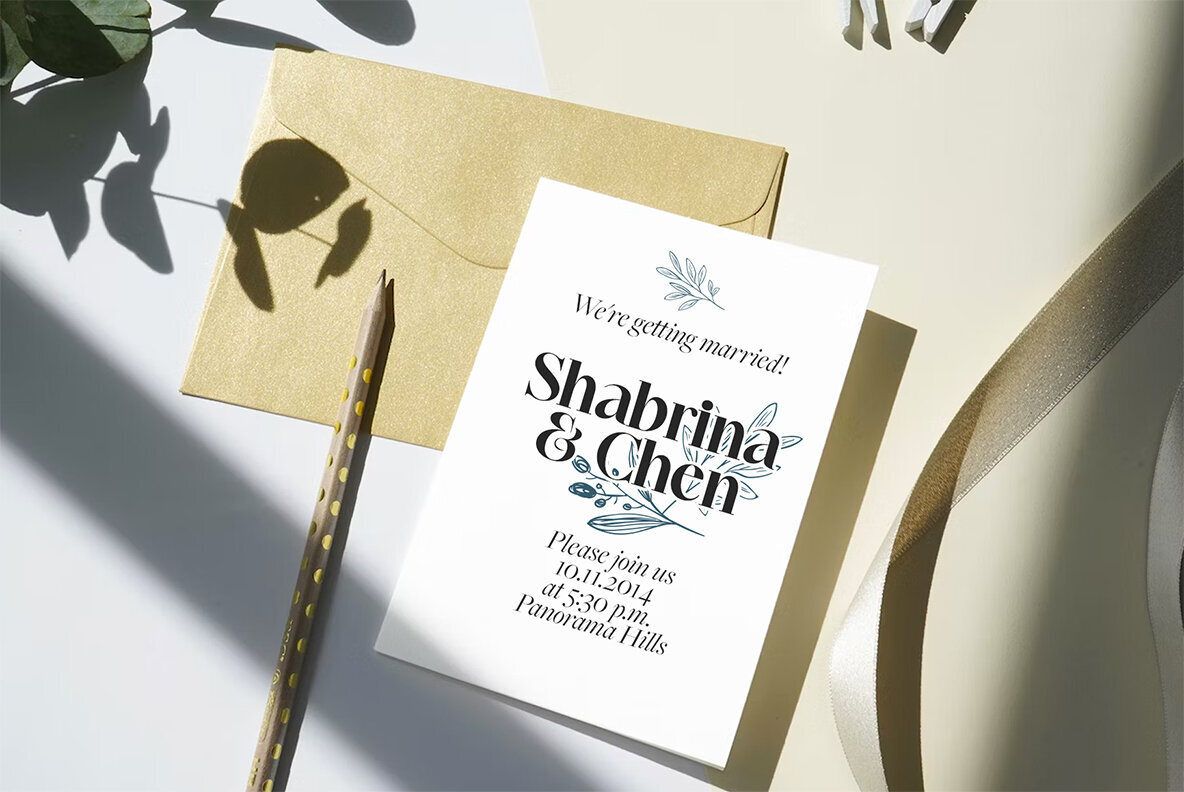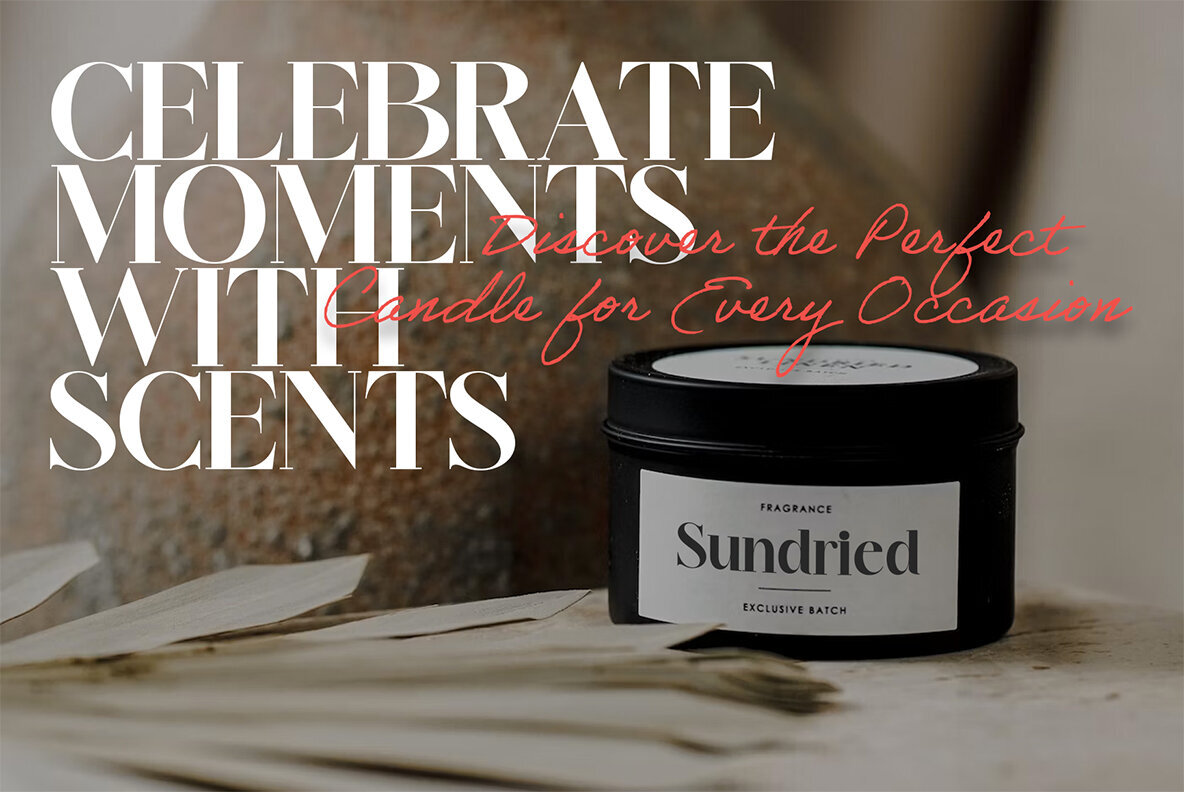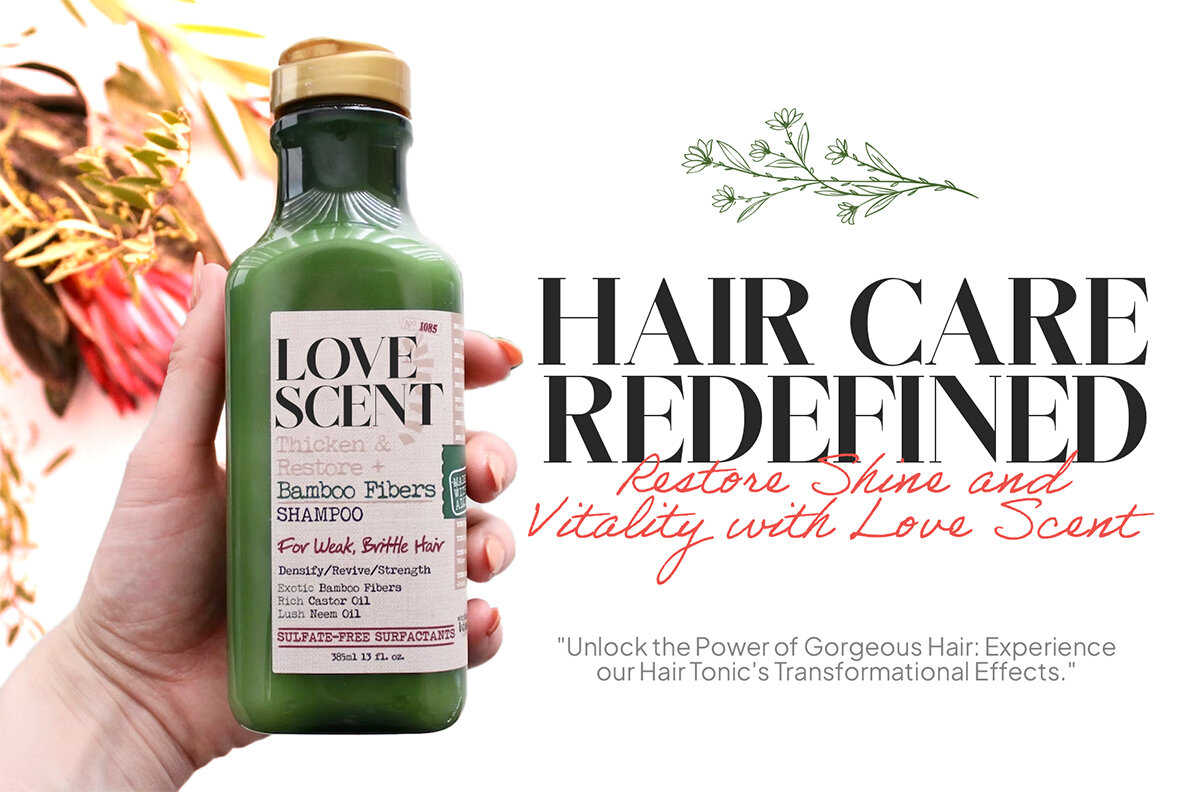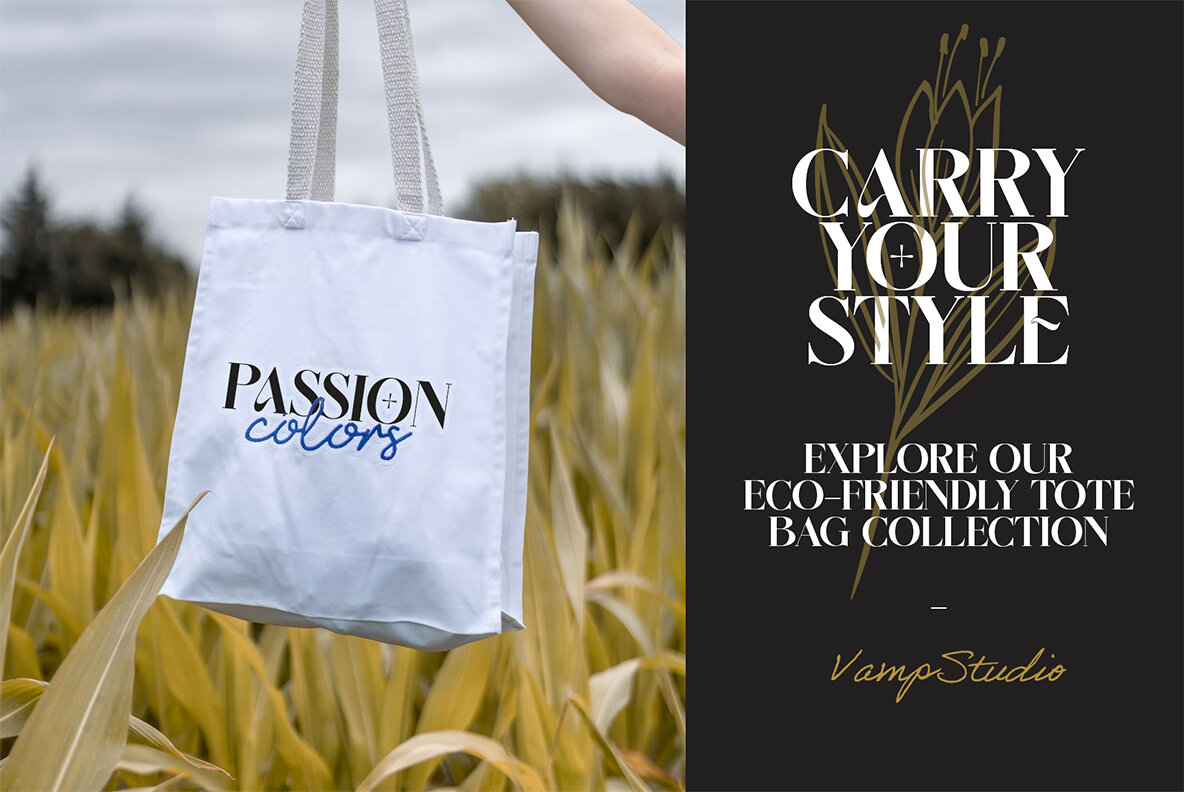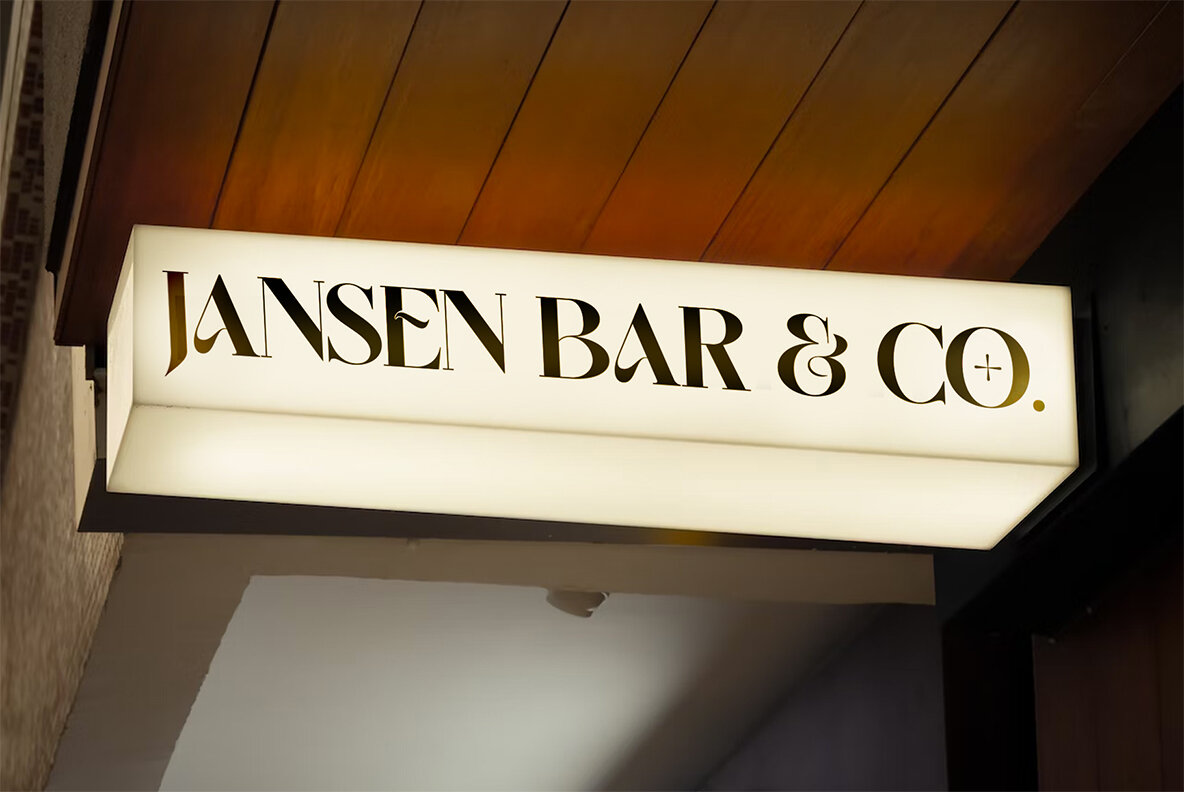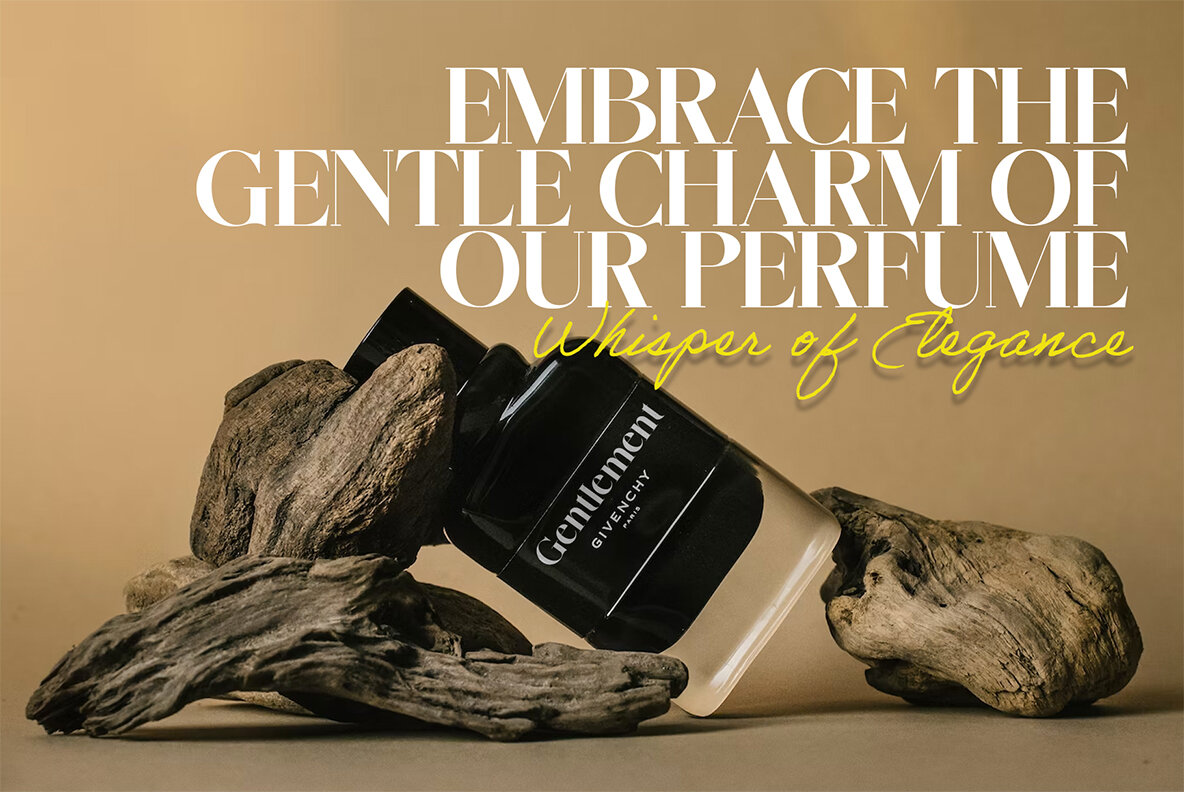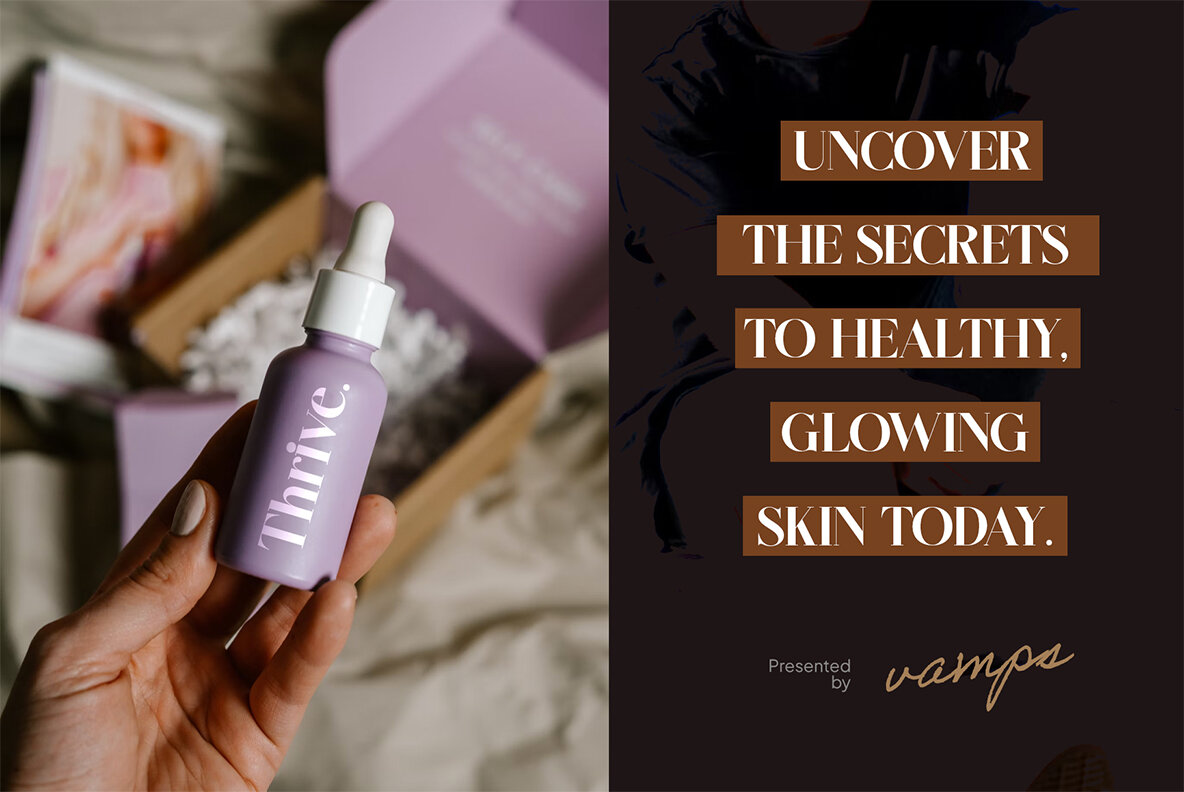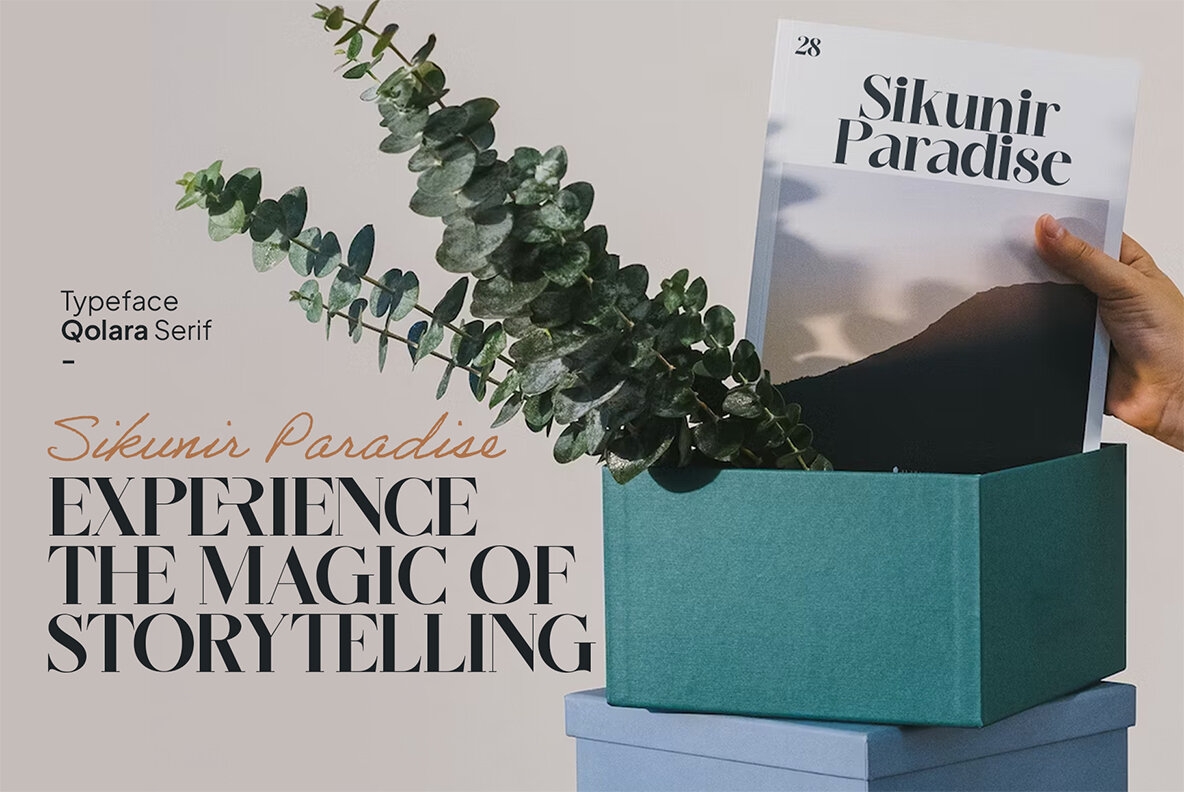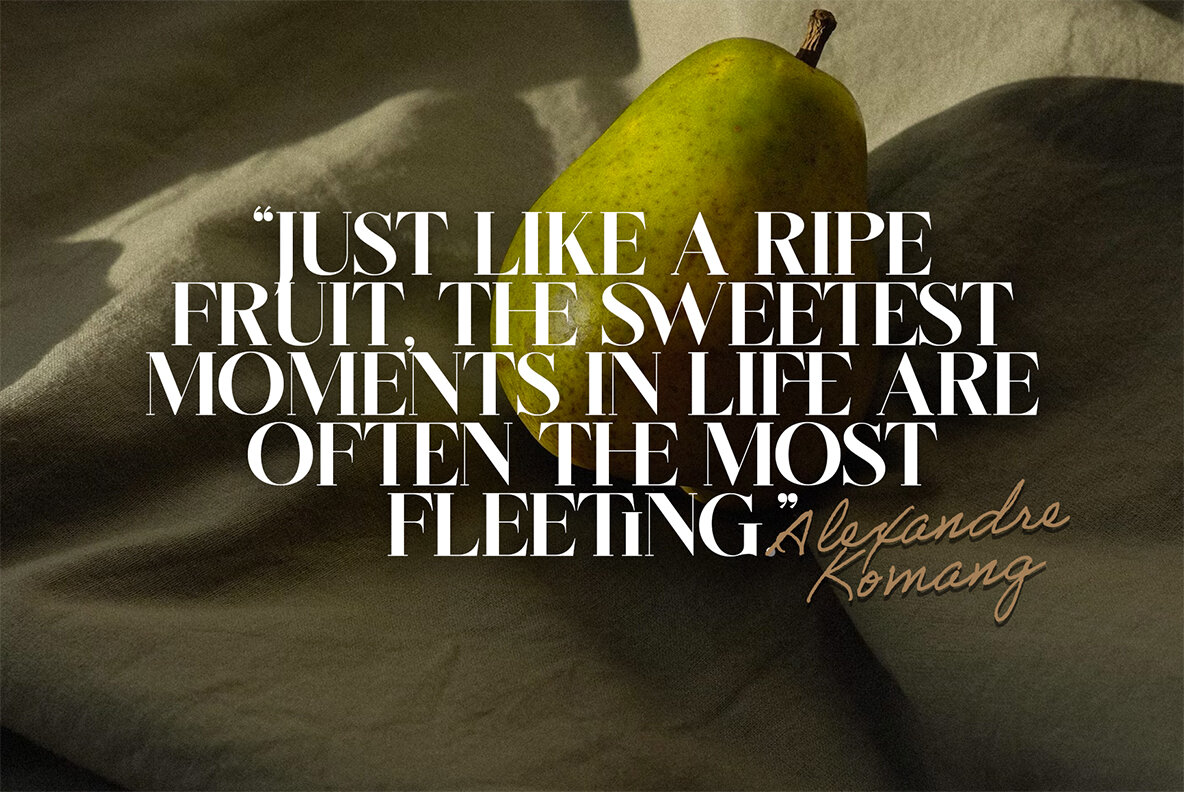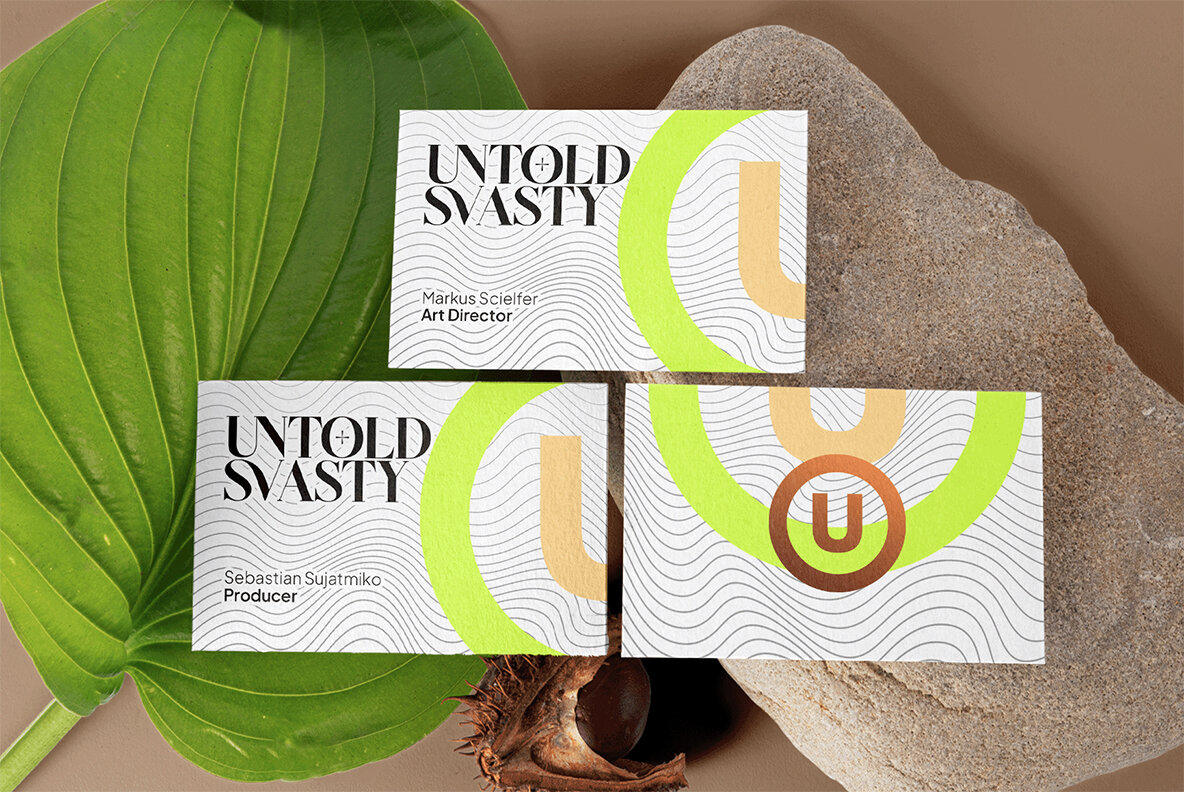
Qolara Serif Font
Qolara Serif Regular
Qolara serif is a modern elegant and stylish serif typeface. This font looks very simple, clean, and elegant. Specially designed by skilled hands makes this font is the perfect fit for all your big projects. Qolara serif is perfect for branding projects, logo, wedding designs, social media posts, advertisements, product packaging, product designs, label, photography, watermark, invitation, stationery and any projects that need luxury and modern taste.